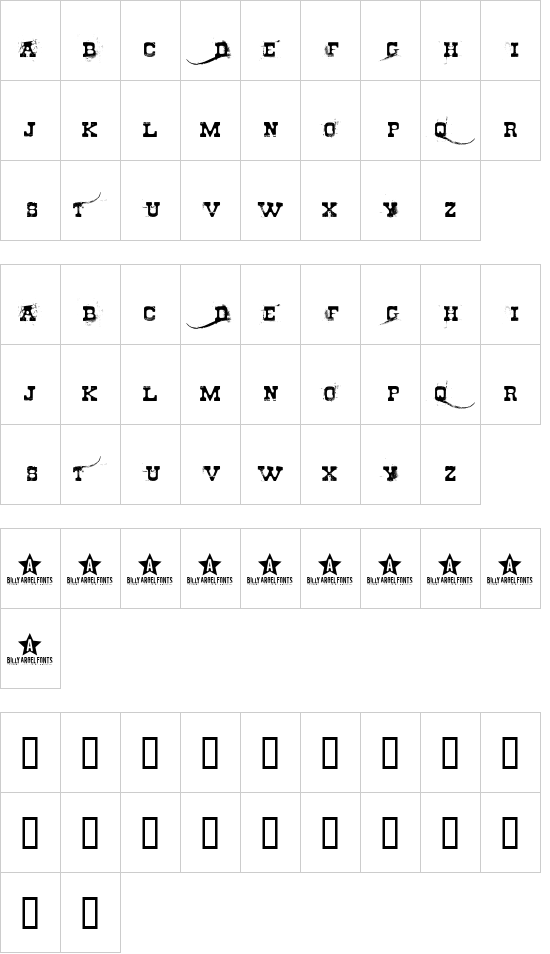
Cheap Stealer is a grungy wild west font with rugged, distressed frontier styling and a worn outlaw feel. The slab-edged letters are roughened and scuffed, looking weathered enough to have hung outside a saloon for decades.
That dusty look suits western posters, whiskey branding, rodeo flyers, and rustic vintage signage. Cheap Stealer is free to download as a TrueType file, and you can preview it with your own text to see how the worn frontier forms read in a headline.